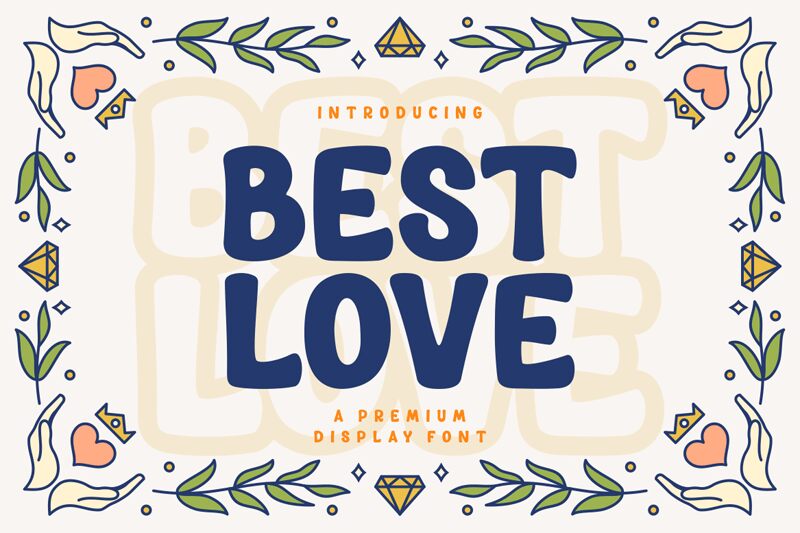
Best Love DEMO Italic
Best Love Italic is a bold, groovy display font designed by Vilogsign. It stands out from the crowd and is perfect for creating eye-catching logos, posters, and product packaging that will make an impact.